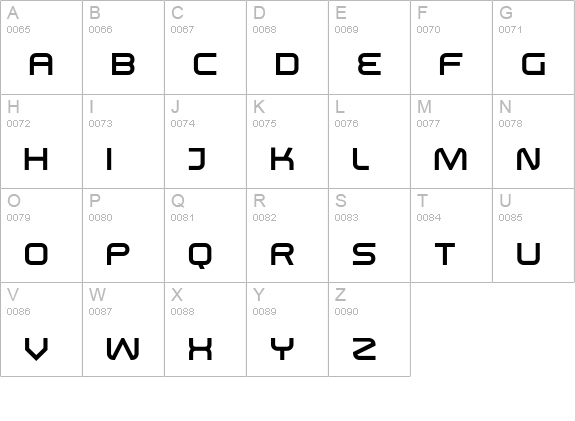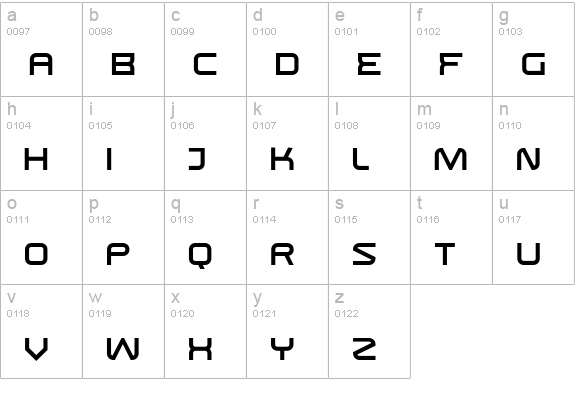
Swisz Font Details
Introducing Swisz font, a modern and stylish typeface that is perfect for adding a touch of elegance to your designs. With its clean lines and sophisticated appearance, Swisz font is sure to make a statement. This versatile font is ideal for a wide range of projects, from branding and marketing materials to invitations and social media graphics. Its sleek and contemporary look will help your designs stand out and leave a lasting impression. Best of all, Swisz font is available for free download at FontsMarket.com. So go ahead and elevate your designs with this beautiful and stylish font today!